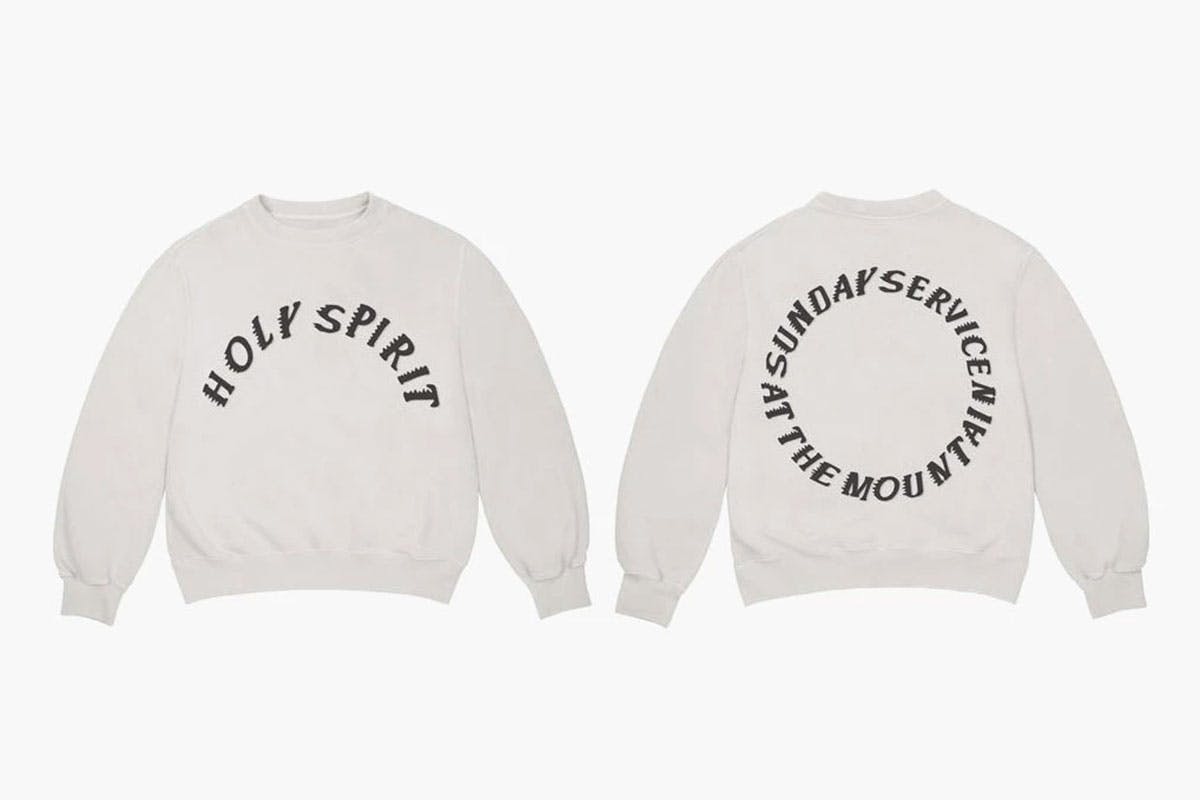
Kanye West dropped new merch to coincide with his Sunday Service performance at Coachella this weekend. And while the pieces mostly caught attention for their evangelical-style slogans such as “Trust God” and “Jesus Walks,” we found ourselves focusing on two aspects in particular: the font used throughout and their not insignificant price point.
While we're not exactly sure what the font is called—or whether it is technically a typeface or rather drawn by hand—we do know that West, Bravado, and Team YEEZY teamed up with Cactus Plant Flea Market to design it, which explains why it looks so similar to that on Kid Cudi's Coachella merch.
Now take a closer look at West's:
With its rushing trails, it almost recalls the Jokerman font, a Comic Sans-level typeface usually reserved for childcare centers or perhaps your local church newsletter (maybe that was the inspiration all along). But West's merch font isn't as elementary school-looking as Jokerman; there are no swirls, circles, or other cartoon-like elements that would make it unusable to a serious brand, Balenciaga aside.
You could say West's new font of choice leans toward the motocross-style looks seen on previous G.O.O.D. Music drops (see: Teyana Taylor), thanks to those speed lines erupting from the left side of each letter. “A super-fast electric motorcycle from a manga-like next millennium” was, after all, the inspiration behind the Mads Rydahl-created Planet Kosmos font West employed across his YEEZY Season 4 “Calabasas” invite merch.
West has always paid attention to fonts — and the rest of streetwear (and the high street) has taken note. Remember how ubiquitous gothic/old English typefaces became after West emblazoned one on his Cali Thornhill DeWitt-designed The Life of Pablo merch?  Elsewhere, the neon copy on Wyoming drops and the disjointed text on his Cudi collab, Kids See Ghosts showed that the artist took his typeface seriously. While his Coachella merch has solidified the fact that unique fonts are part of West's design aesthetic.
And why should we be surprised? West himself declared his love of fonts back in 2010 with the now-iconic tweet: “sometimes I get emotional over fonts.”
What's more, he's long cited the late Apple founder Steve Jobs — the first person to give us a real, wide choice of fonts on the computer — as one of his biggest inspirations.